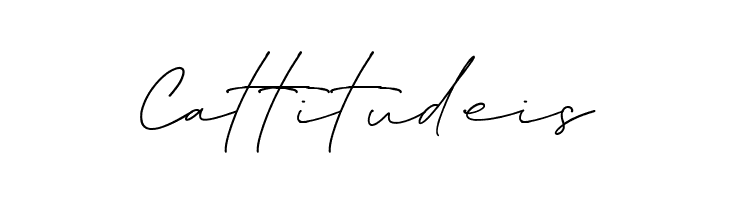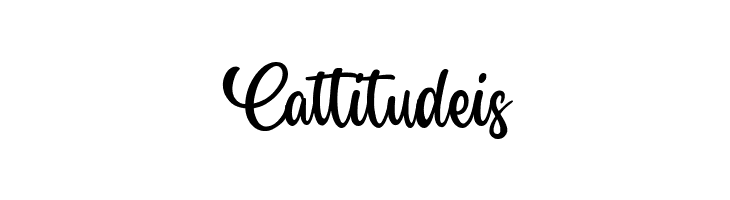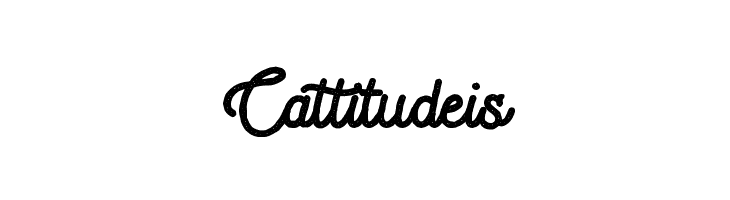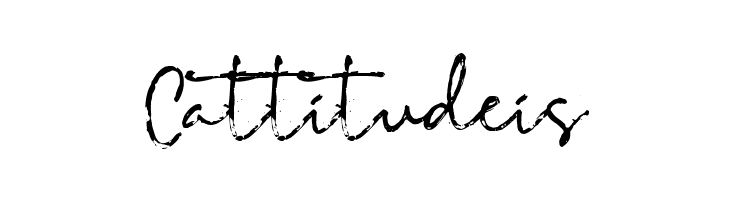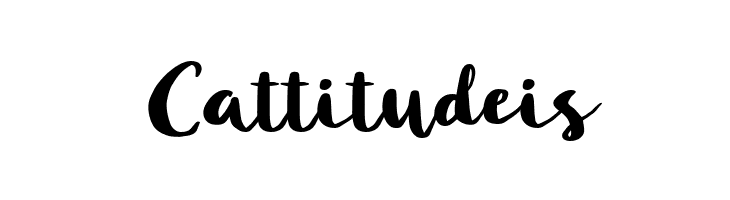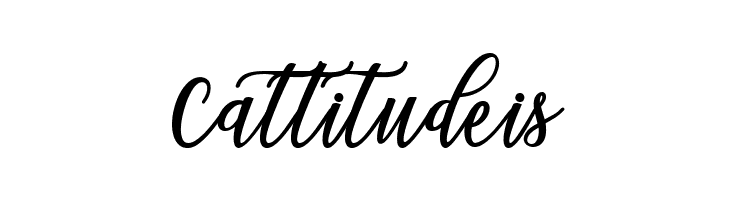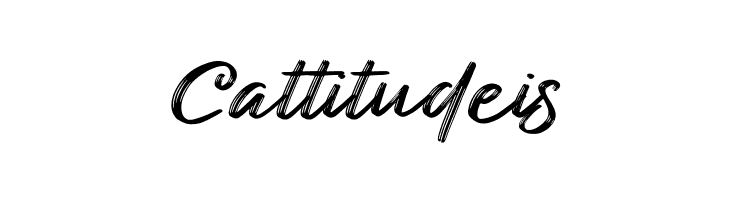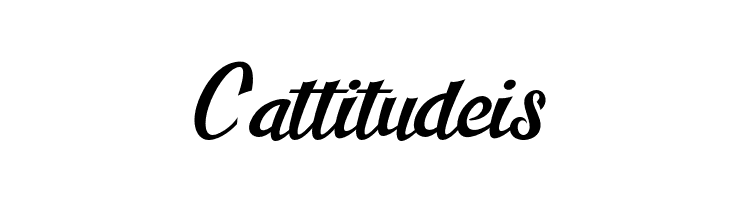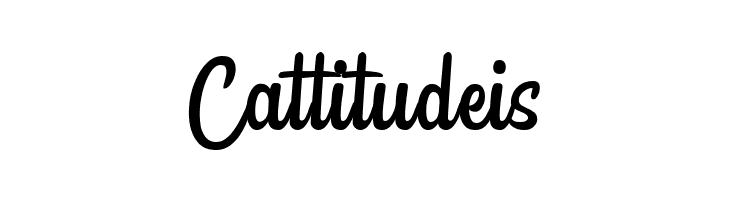
• Black Cow
A decorative font with swirling, vine-like extensions and high contrast, ideal for fantasy themes.
• Black Jack Script
( Bangkit Tri Setiadi - creativemarket.com/bangkit.tri.setiadi )
A bold, cursive script font with dramatic flourishes and high contrast.
• Black Larch PERSONAL USE ONLY
( Fonts by Måns Grebäck )
A bold, dynamic script font with strong slants and thick strokes.
• Black Rainbow Script FREE
An elegant script font with flowing, ornate letters and medium contrast.
• BlackCastleMF
( Fonts by Rick Mueller )
A bold, medieval-inspired font with intricate details and dramatic flair.
• BlackChancery
• Blackcode Script Stamp Free for
A playful, hand-drawn script font with a textured, stamp-like finish.
• Blackened Script Demo
A bold, dynamic script font with flowing, interconnected strokes.
• Blacklite Script DEMO-Regular
A lively and dynamic script font with flowing, cursive letterforms.
• Blacktear Script
( Fonts by Katsia Jazwinska )
A bold, expressive script font with a hand-drawn, artistic style.
• Blank Script
( Fonts by Riyadh Rahman )
A fluid, cursive script font with elegant, connected characters.
• Blankeny-Script
A dynamic and elegant script font with flowing, cursive letterforms.
• Blante Panama Script DEMO Regular
• Blantick Script
( Fonts by Damarletter )
A flowing, elegant cursive font with interconnected strokes and a handwritten appearance.
• BlessedScript
A flowing, elegant script font with smooth, connected strokes.
• Blestive Script PERSONAL USE Regular
A fluid and elegant script font with smooth, flowing strokes.
• Blind Signature
( Fonts by imagex )